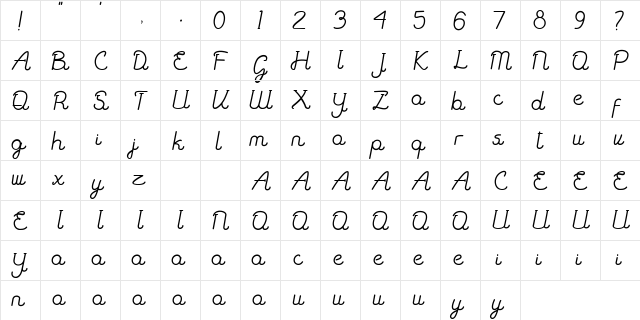
Get Holland Regular
| Foundry | ETC-Supply |
| Designer | ILHAM NASHRUL HUDA |
Design Context for Get Holland Typeface
Get Holland takes a measured approach to typography — its balanced proportions and neutral character make it a reliable workhorse for both digital and print work.